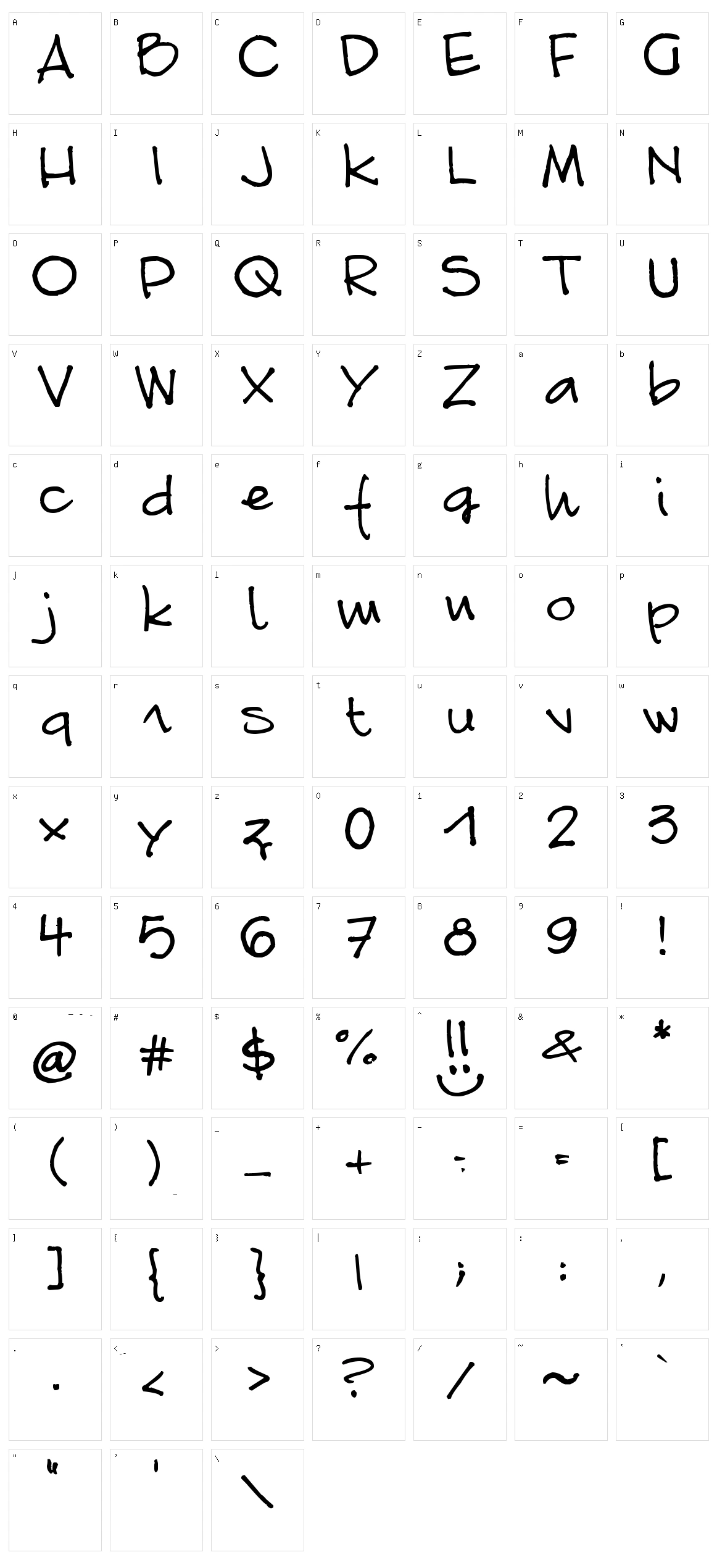
The free font Font Linda.Sciutto is carefully designed by Linda Sciutto, showcasing a thoughtful balance of creativity and usability and falls under the Script font style. When you download the ZIP file, it contains only 31.13 KB of font files, making it lightweight and quick to download. Please review the license details below to understand permitted usage and distribution rights. If license information is not available, we recommend using this font for personal projects only or contacting the author directly for commercial usage permissions.